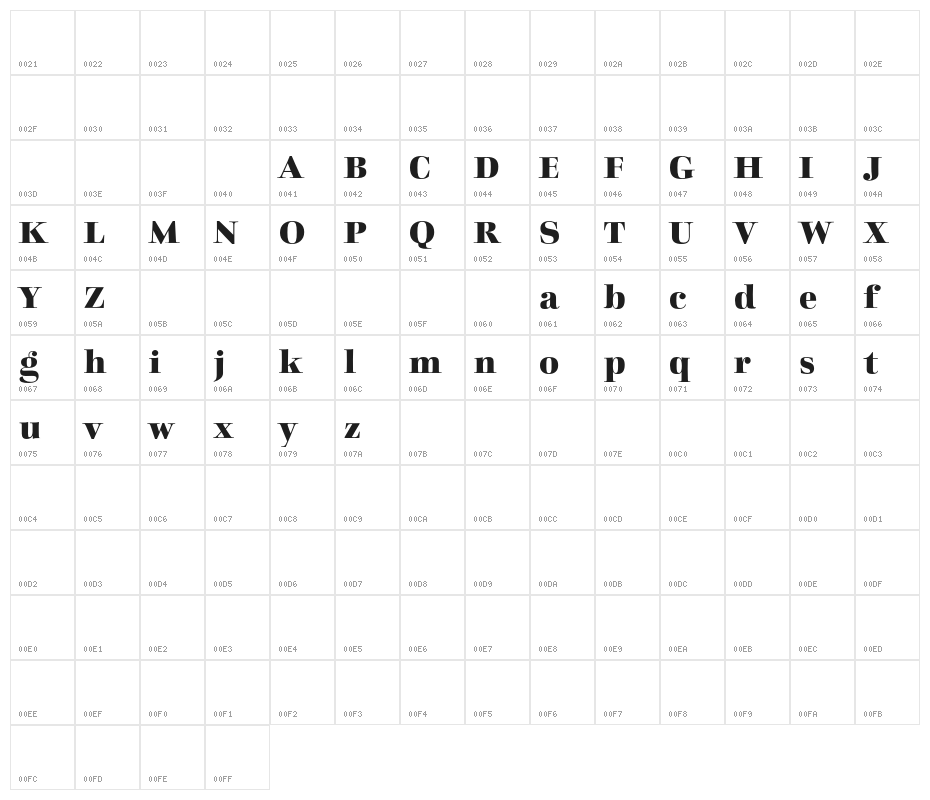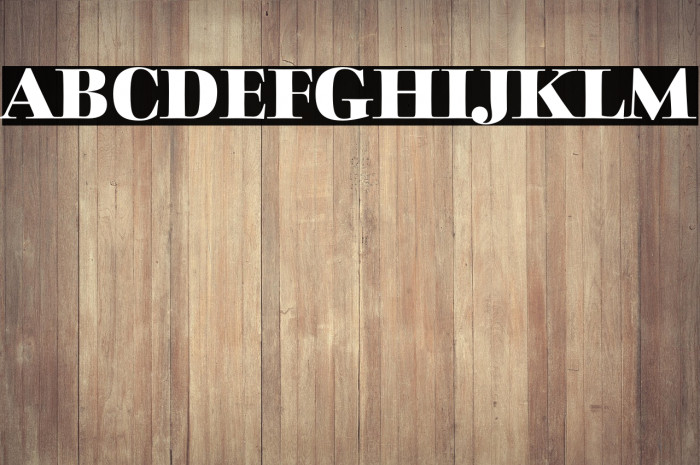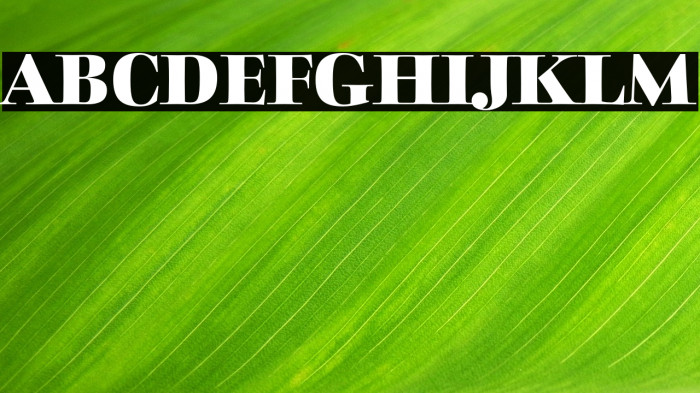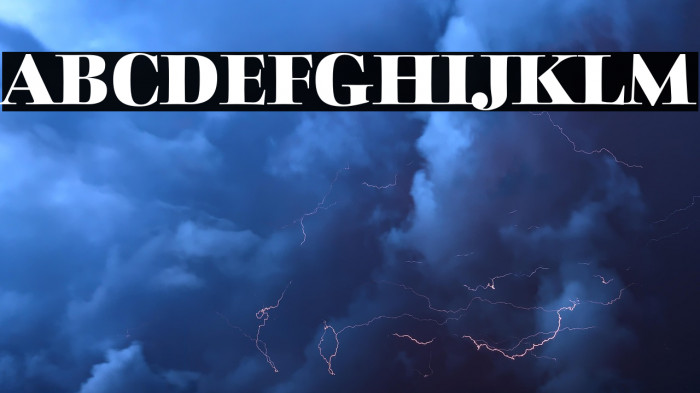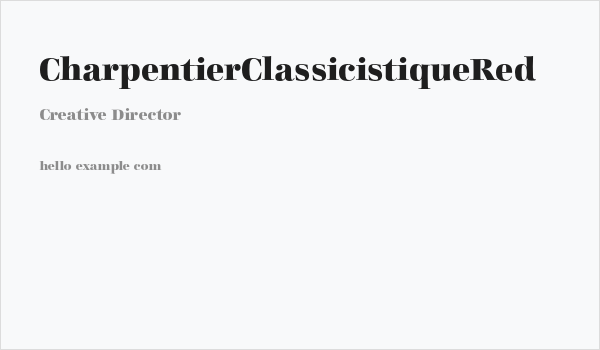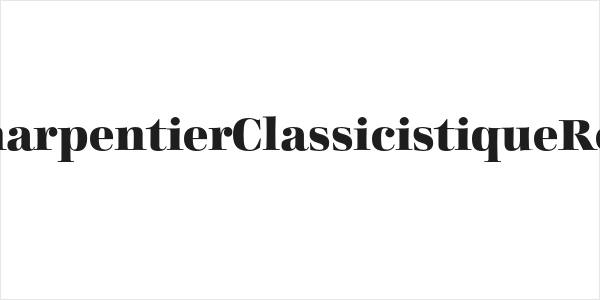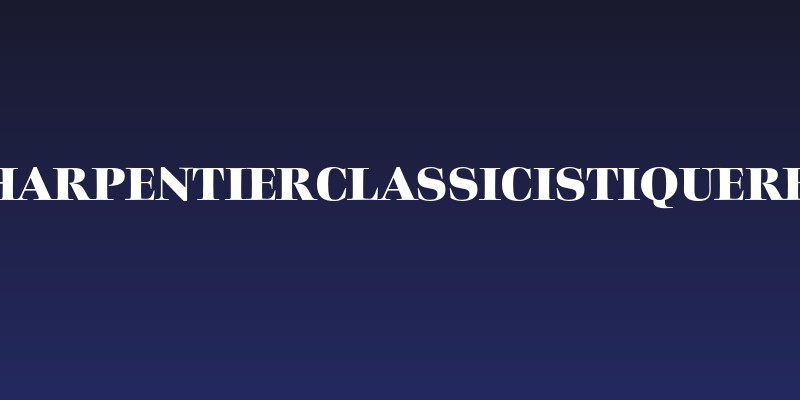
CharpentierClassicistiqueRed Font
CharpentierClassicistiqueRed Description
This font exhibits a classic and elegant serif style, characterized by its bold and pronounced strokes. The uppercase letters are strong and commanding, with a slight flair at the ends of the strokes, giving it a sophisticated appearance. The lowercase letters maintain a consistent style, with rounded edges and a balanced weight that complements the uppercase. The numerals are clear and distinct, making them easily readable. Special characters are designed with the same attention to detail, ensuring they blend seamlessly with the alphabetic characters. This font's overall design is reminiscent of traditional serif fonts, yet it maintains a modern touch with its clean lines and precise curves.
| Use Case | Headlines, Logos, Editorial design |
| Proposed Projects | Ideal for use in editorial design, book covers, luxury branding, and formal invitations. |